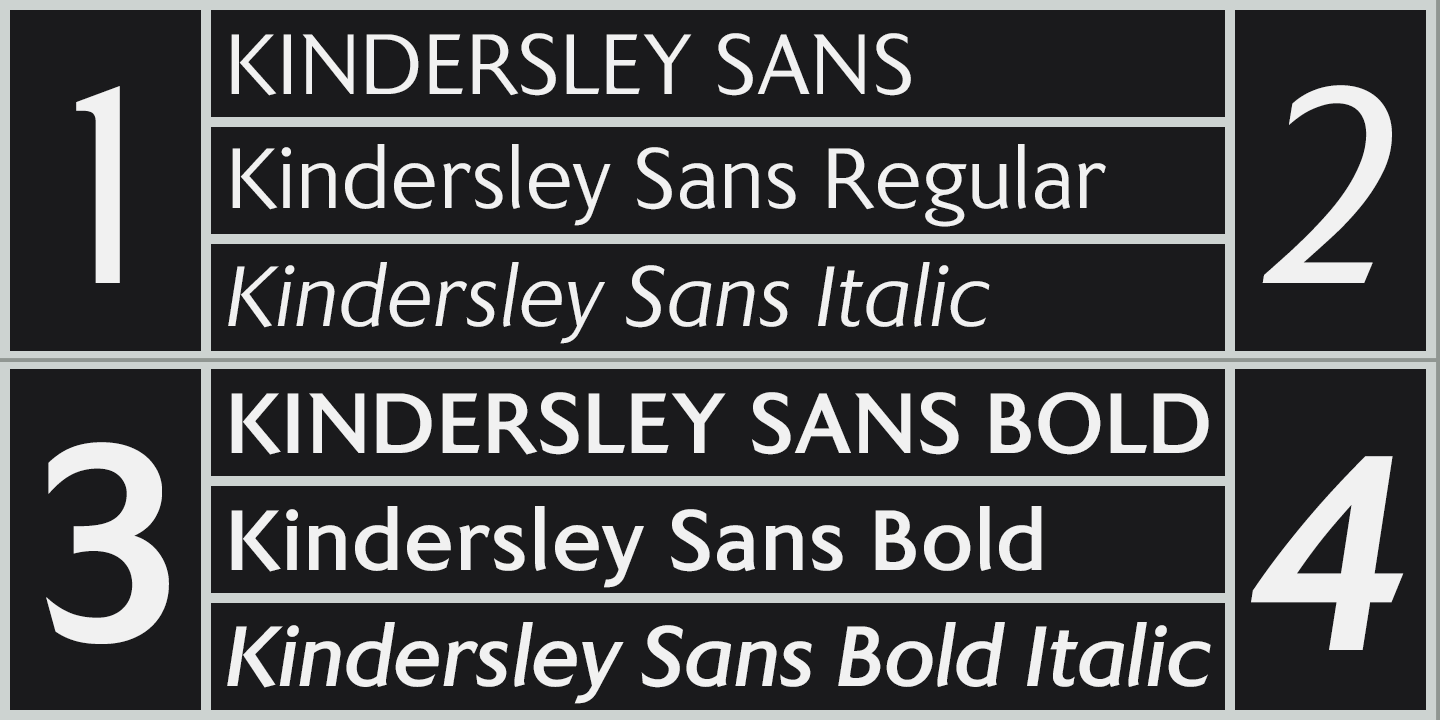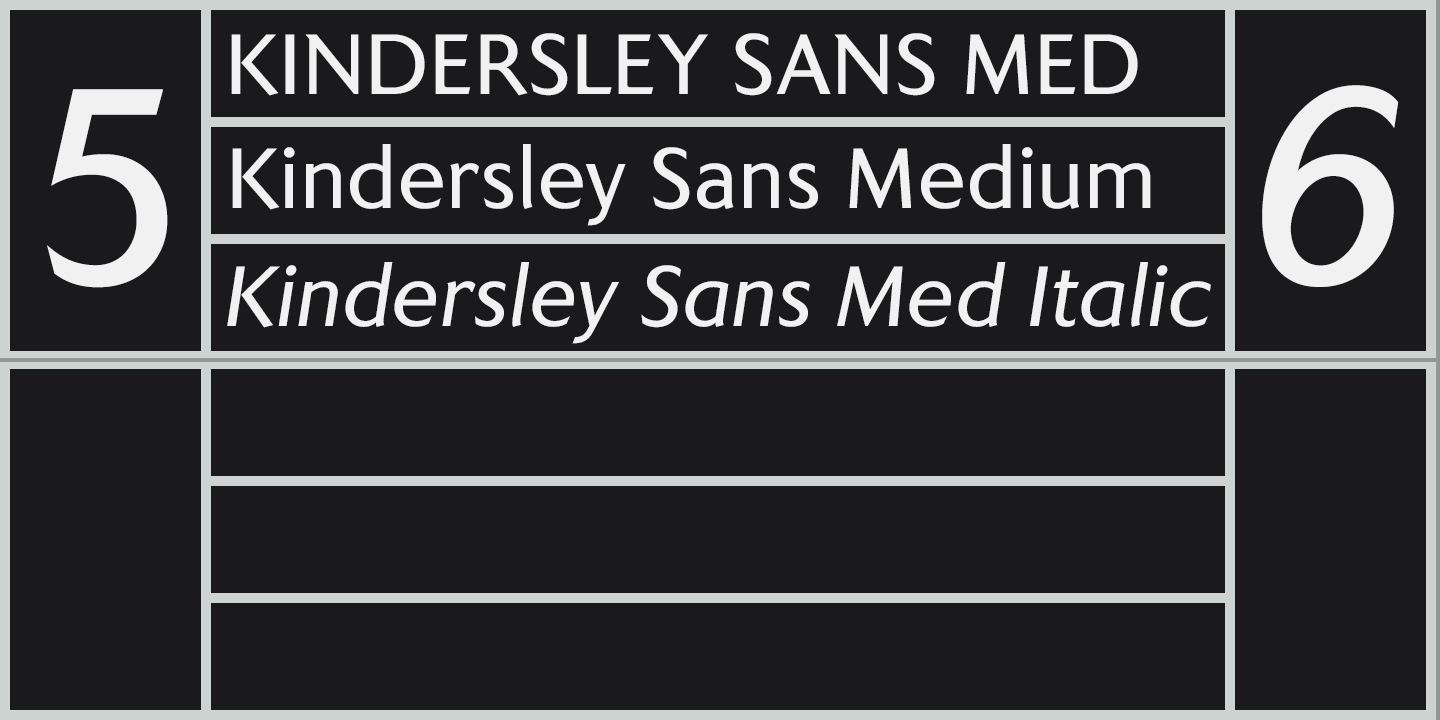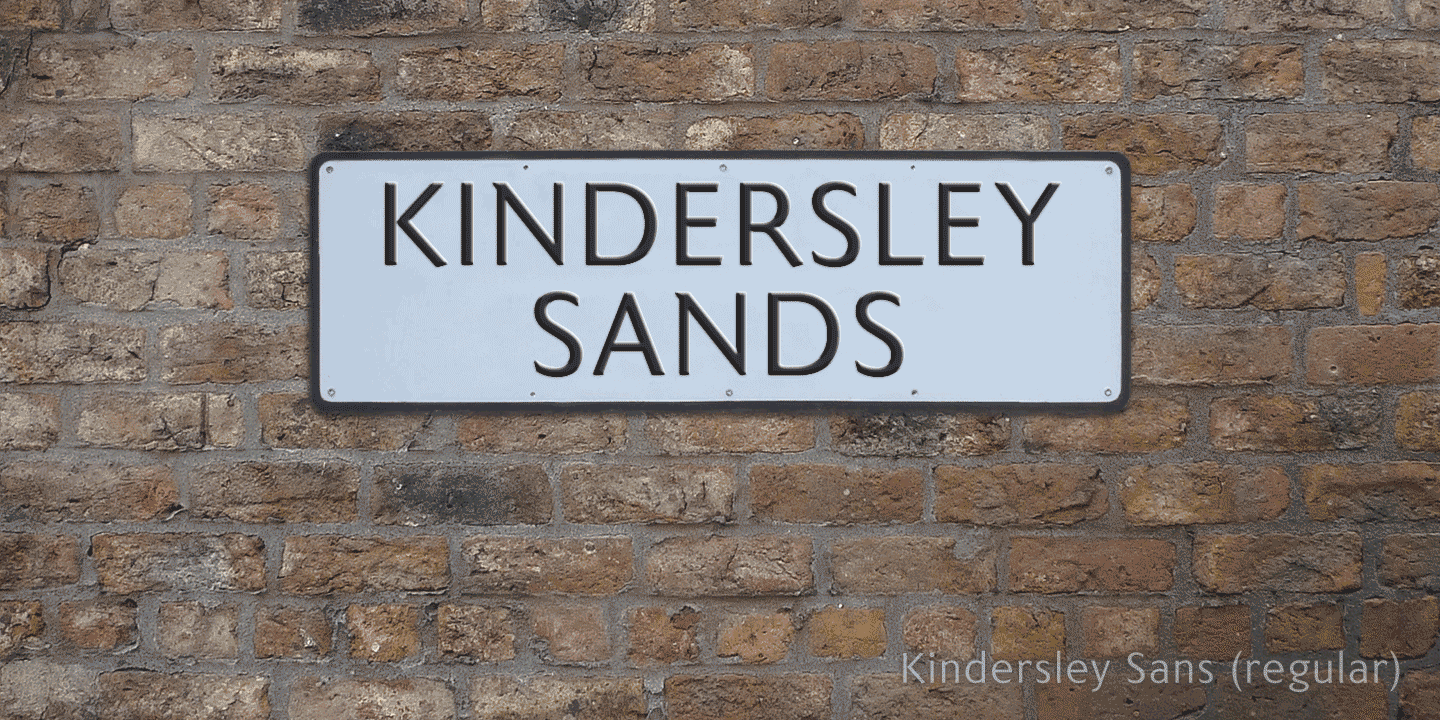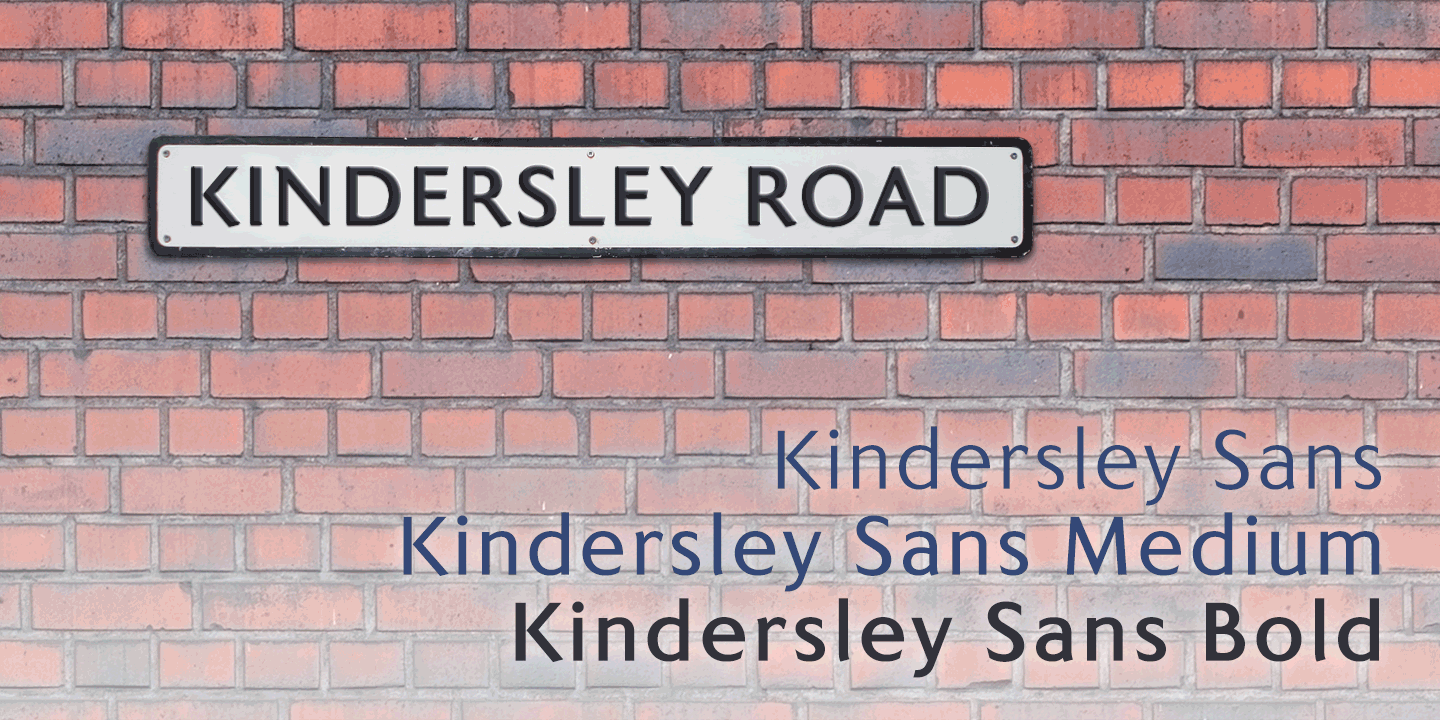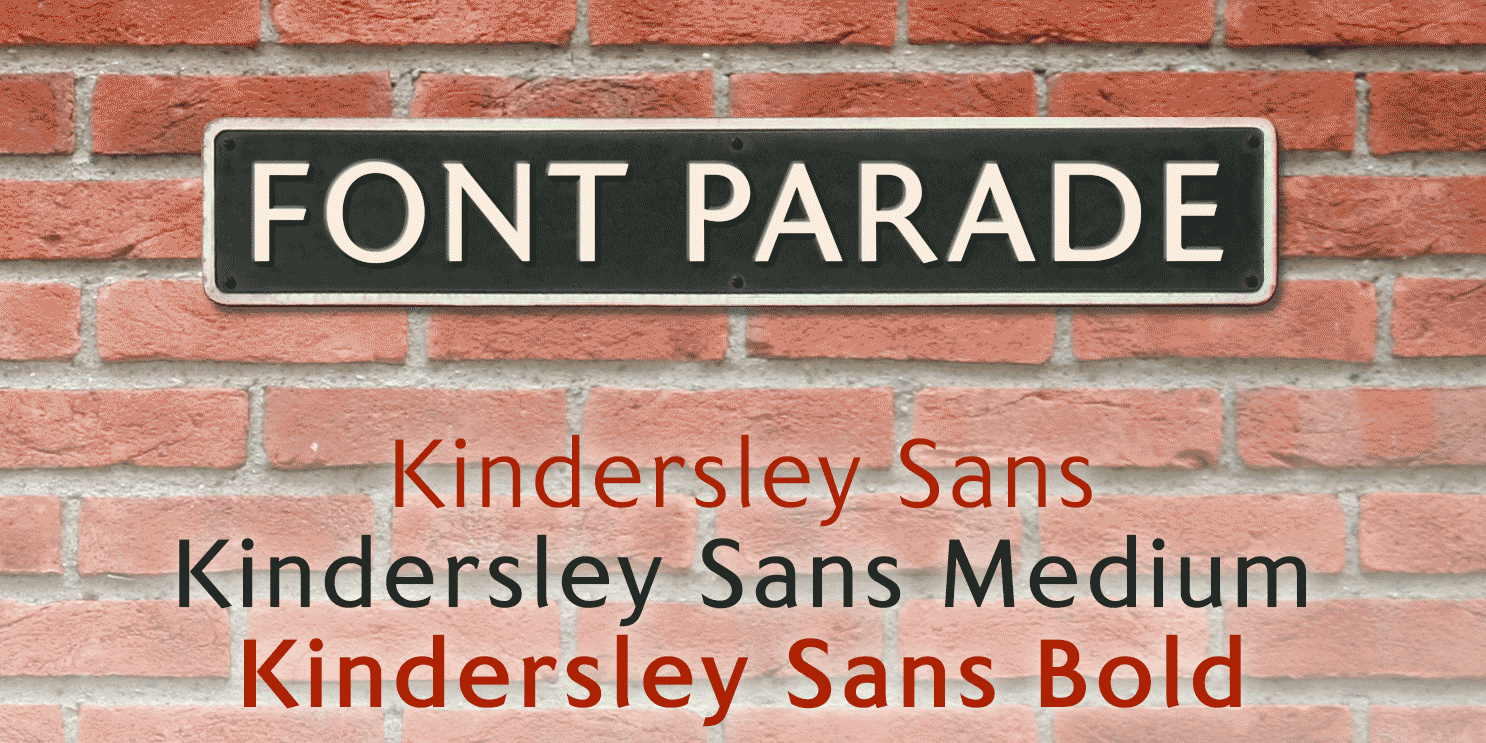
Many street nameplates in Britain use versions of Kindersley serif capitals designed by David Kindersley in the 1950s. K-Type Kindersley Sans is an unfussy alternative to the signage stalwart, perfectly suited to newer environments and more contemporary…